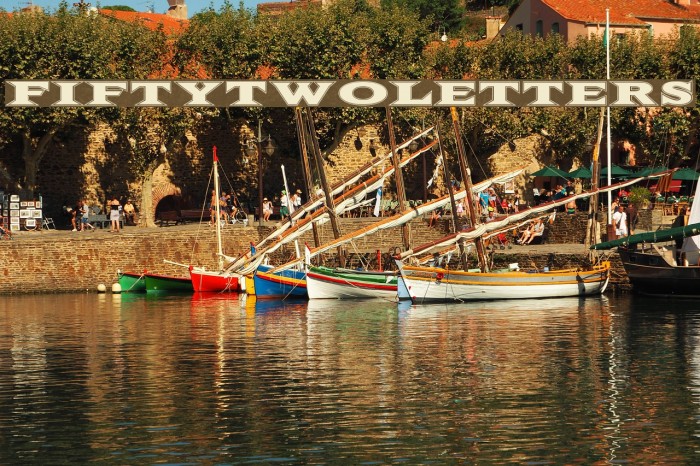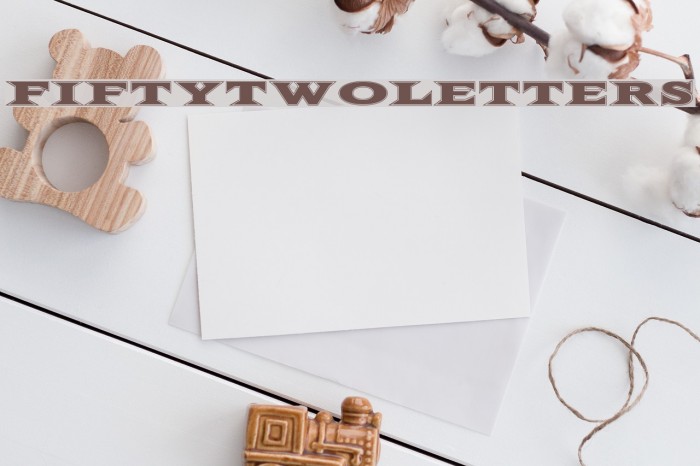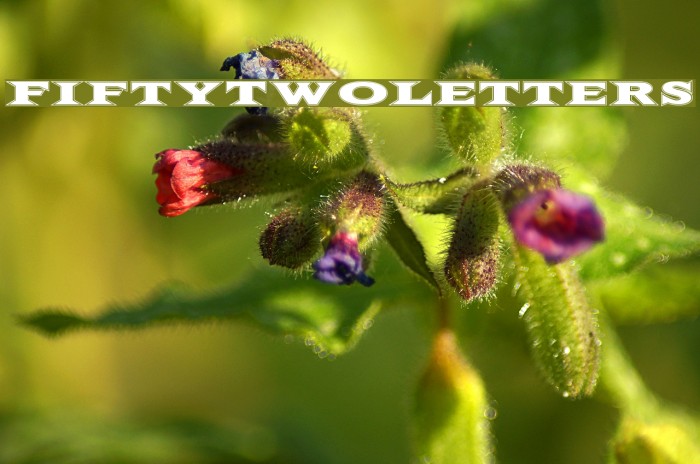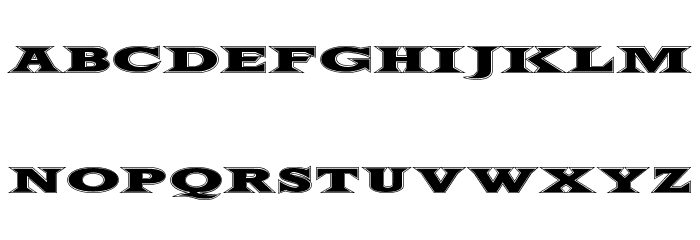
FiftyTwoLetters Font
FiftyTwoLetters Description
This font features a bold and striking design with a strong presence. The characters are heavily stylized, incorporating sharp edges and a three-dimensional effect that gives them a shadowed appearance. The uppercase letters are particularly prominent, with a wide stance and a sense of movement. The font's unique style makes it suitable for attention-grabbing headlines or logos where a dramatic impact is desired. The overall aesthetic is modern yet reminiscent of vintage poster typography, combining elements of both eras.
A bold, stylized font with sharp edges and a three-dimensional effect from Crazy fonts.
- ( Fonts by Manfred Klein - manfred-klein.ina-mar.com FREE )
- Proposed Projects: Ideal for use in posters, logos, branding materials, and any design requiring a bold statement.